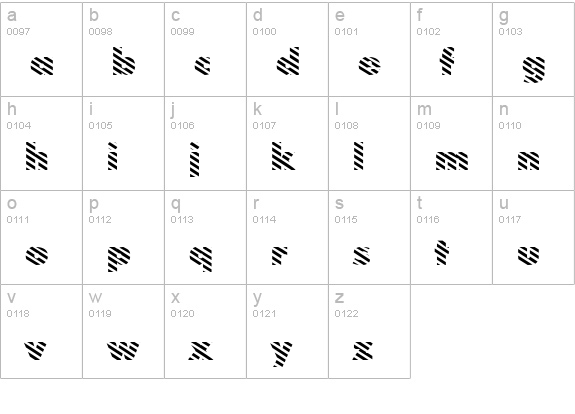
BarberPole Font Details
BarberPole font is a stunning display typeface that exudes elegance and sophistication, perfect for adding a touch of vintage charm to your designs. Its timeless appeal and classic look make it ideal for a wide range of projects, from branding to packaging to invitations. With its intricate detailing and stylish curves, BarberPole font is sure to make a statement and captivate your audience. What's even better is that BarberPole font is available for free download at FontsMarket.com. This means you can easily access this beautiful font and use it in your projects without any cost. Don't miss out on the opportunity to elevate your designs with the timeless beauty of BarberPole font. Download it for free today at FontsMarket.com and add a touch of elegance to your creations.